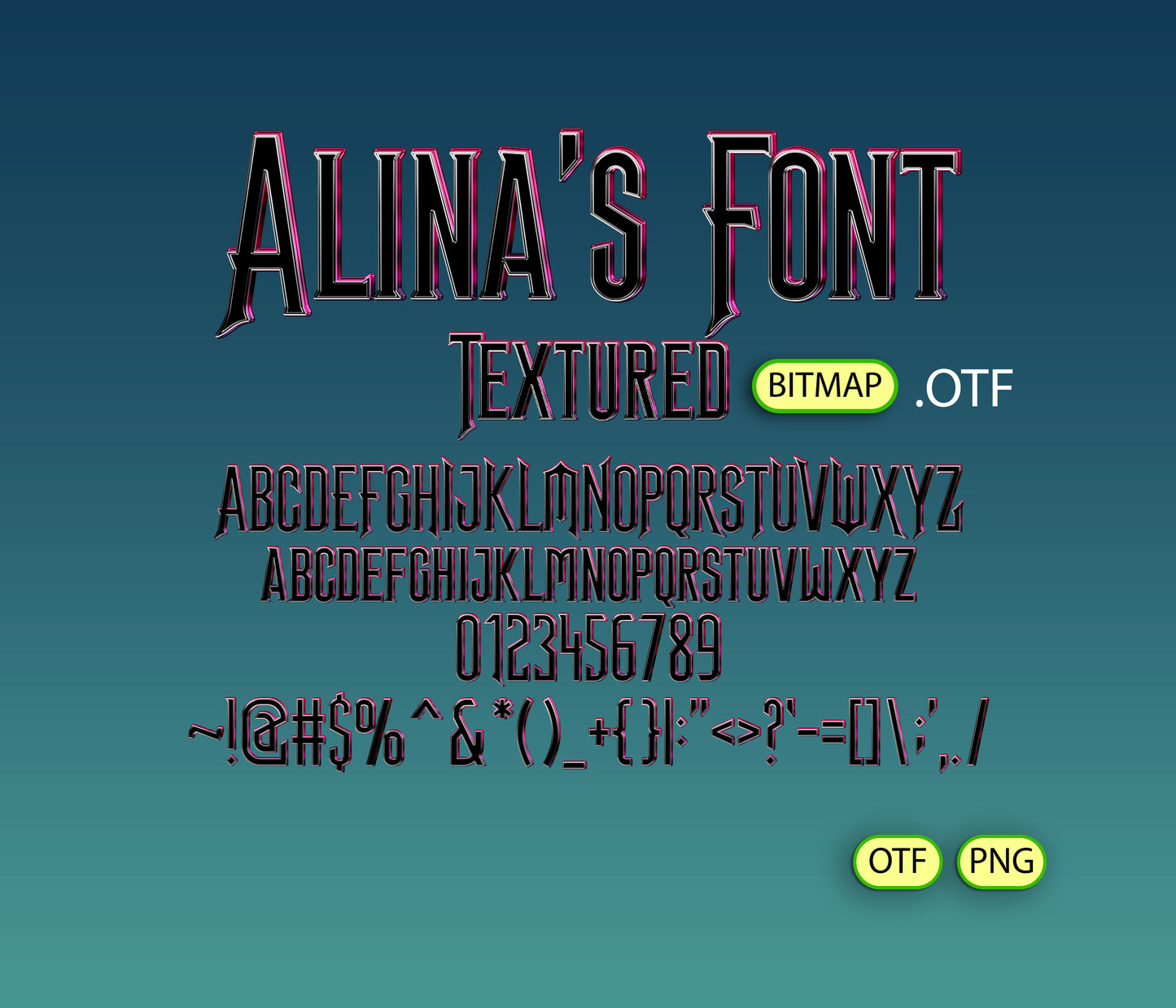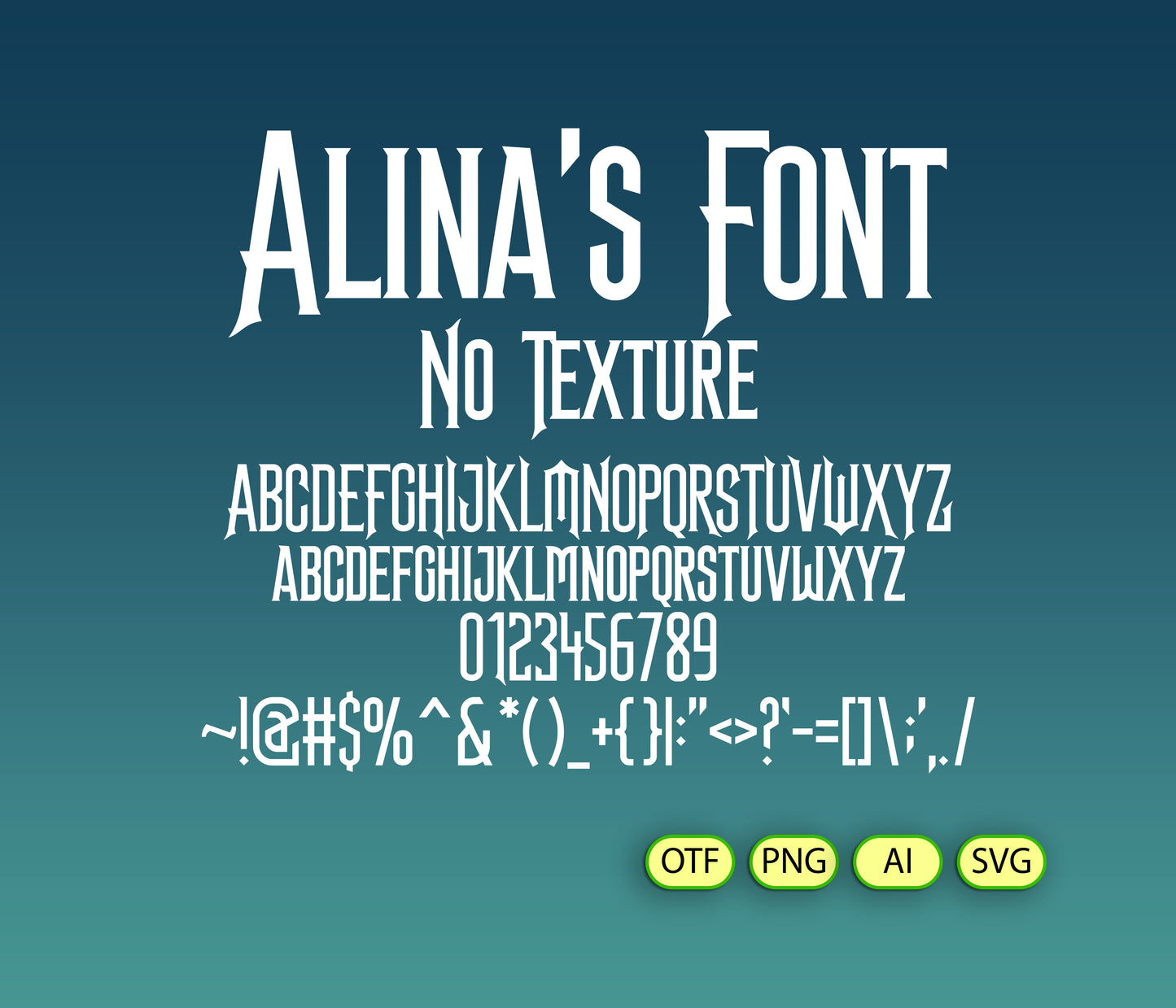
Mystic Tales Font Textured
Elevate Your Designs with the Mystic Tales Font
Step into an enchanting world of fantasy with our Mystic Tales font, crafted to embody the magic and adventure of a beloved story. Ideal for theater enthusiasts and creatives seeking to capture the spirit of fantastical journeys, this font melds mystique with a fresh, contemporary twist. Whether designing promotional materials for productions, creating captivating event invitations, or enhancing online content, our Mystic Tales font ensures your projects resonate with magic and innovation.
Influenced by modern and sophisticated visuals of epic tales, this font features sleek, stylized characters that maintain whimsical undertones. It offers a balance between elegant contours and sharp, dramatic flourishes, reflecting deeper narratives and evolved character dynamics. The complete character set includes uppercase and lowercase letters, numbers, and special symbols, providing extensive versatility for all types of media and text-rich applications.
Our Mystic Tales font is designed for broad usability and maximum impact, including both textured and non-textured variants to cater to diverse design needs. Importantly, it includes a version with no texture, ensuring flawless compatibility with all types of design software, including Canva. This non-textured version is especially advantageous for those who require a clean and professional look in their designs, ensuring clarity and readability across all applications.
This font not only celebrates imaginative worlds but also enables creators to infuse their projects with the contemporary elegance and dramatic flair that these stories are known for. Whether you are a professional designer, a marketer in the arts, or a fan creating content at home, the Mystic Tales font allows you to convey messages with both magical intrigue and advanced sophistication. Let every word you craft carry the spirit and excitement of fantastical adventures, engaging audiences and bringing the wonder of epic tales into the modern day.